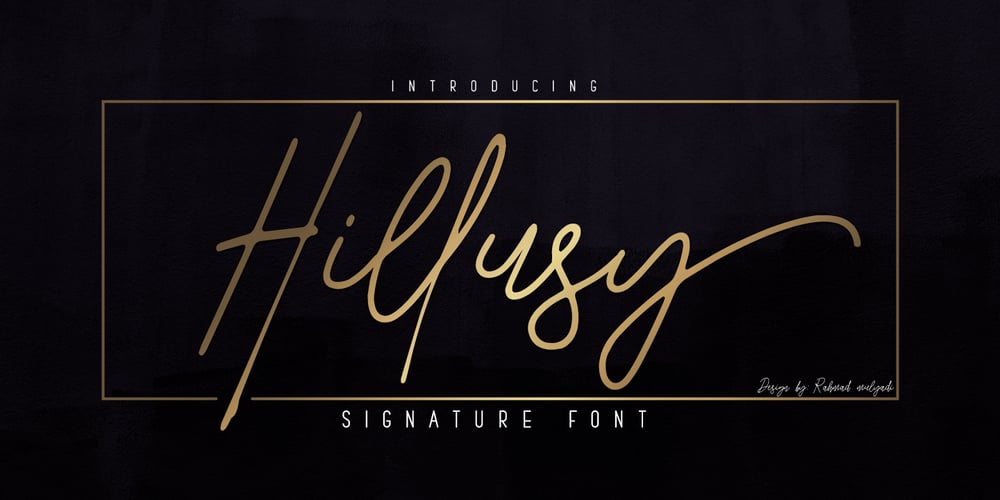
Hillusy Font Family was designed by Rahmad Mulyadi and published by BaronWNM. Hillusy contains 1 styles and family package options. Hillusy is a scrip font traced from handwriting using a pen monoline. displays a variety of letters so that it looks more casual and less stiff. This font is suitable for use in almost any casual style design and is not rigid, such as branding, advertising, printing, portfolio, business cards,signature, etc.